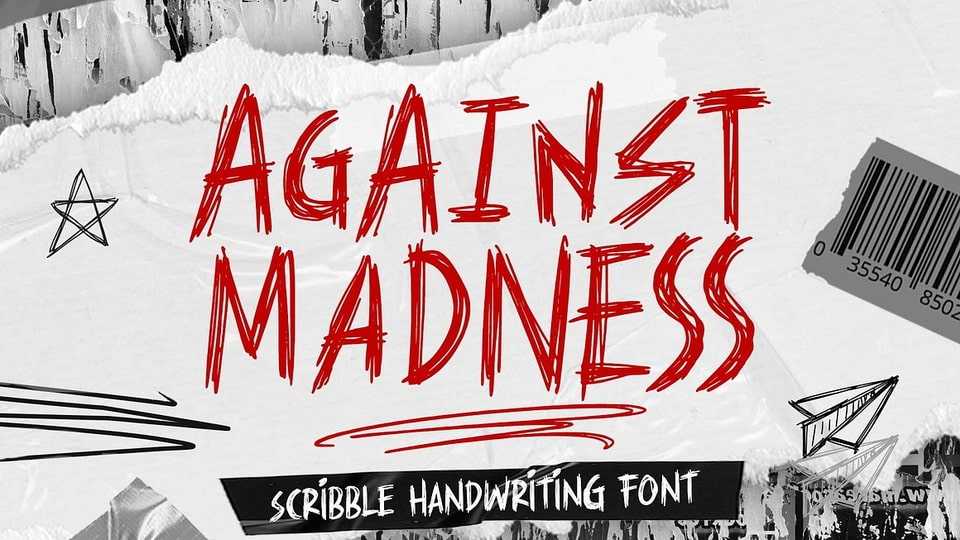
Download Against Madness font, a rebellious typeface that speaks louder than words. With expressive, hand-drawn strokes, this typeface channels pure feeling into every letter.